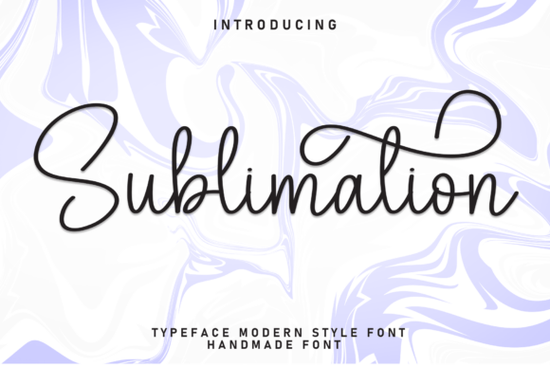
If you're looking for a font that brings warmth and personality to your designs, the Sublimation Font is a thoughtful choice. It’s a handwritten-style display typeface with a soft, friendly feel perfect for projects where a personal touch matters. Whether you’re designing wedding invitations, greeting cards, or custom gifts, this font adds charm without overwhelming the layout.
What makes this font stand out?
The Sublimation Font has a natural, flowing hand-drawn look that feels like someone wrote it just for you. It’s not overly decorative, but still distinctive enough to make your design memorable. The letterforms are balanced and readable even at smaller sizes, which helps when you’re working on product labels or small print pieces.
It works especially well in digital sublimation projects like mugs, t-shirts, and phone cases because its curves and spacing translate smoothly from screen to fabric. You can use it for both casual and formal designs, depending on how you pair it with other elements.
How can I use this font in my creative work?
- Wedding stationery: Pair it with minimalist lines or floral accents for elegant invites that feel personal.
- Gift tags and packaging: Use it for “To:” or “From:” labels on handmade gifts adds a sweet, thoughtful vibe.
- Print-on-demand items: Great for Etsy shop products like tote bags, journals, or wall art.
- Seasonal cards: Perfect for birthdays, baby showers, or holiday messages where warmth matters.
For best results, pair the font with simple backgrounds or solid colors. Avoid busy patterns behind it, as the delicate strokes can get lost. A light cream, pastel pink, or soft gray often works well.
If you’re drawn to fonts that feel genuine and warm, Sublimation Font delivers exactly that. It’s not flashy, but it’s reliable and full of character. It fits naturally into many types of creative work especially those centered around connection, celebration, and care.